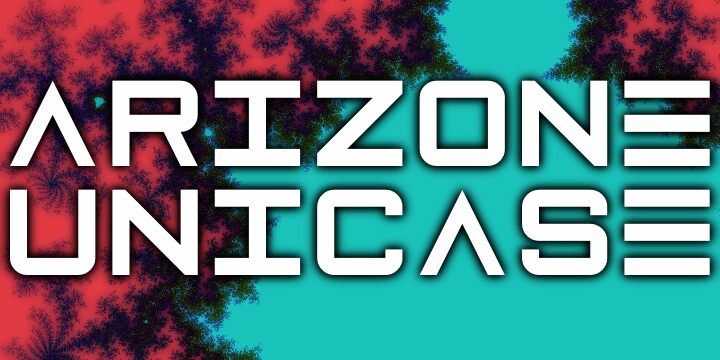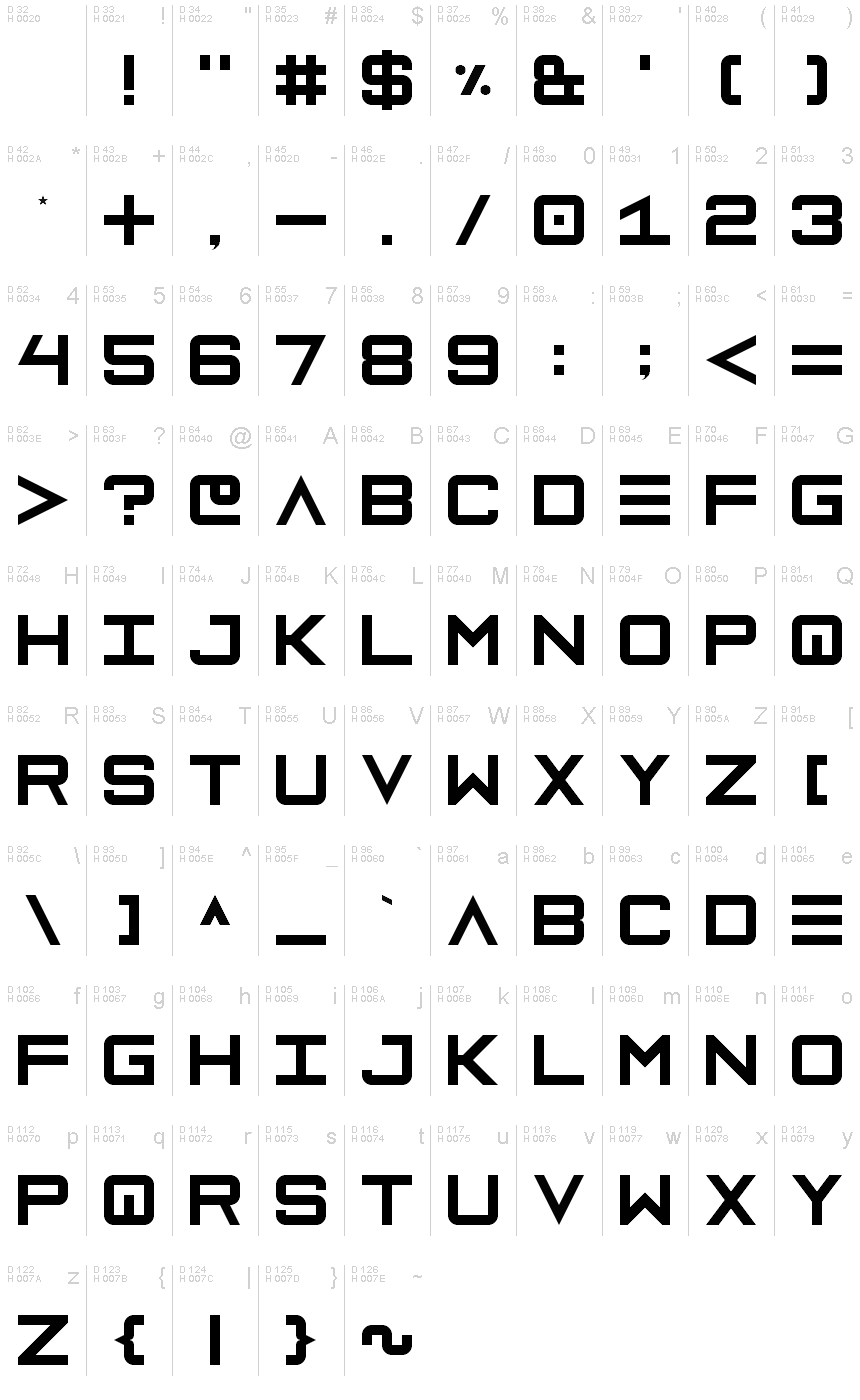
Arizone Unicase Regular
A monospaced sci-fi design made for a friend! The angular counters give this a simplified geometry which makes it easy to read. Works well for small- or large-scale applications - chat, terminals, logos, and more.
Supports Dutch, English, and Greek.
Designer description: A space-esque design made for a friend! The angular counters give this a simplified geometry which makes it easy to read despite its looks. Works well for small- or large-scale applications - chat, terminals, logos, and more.